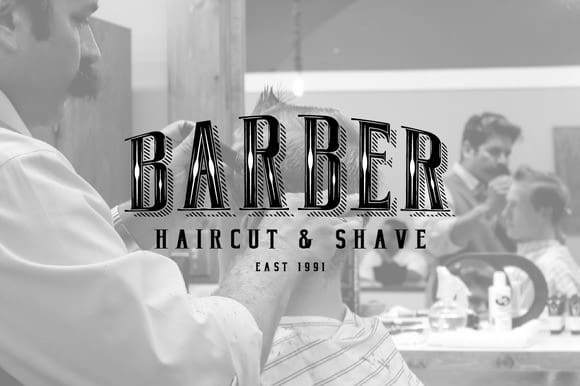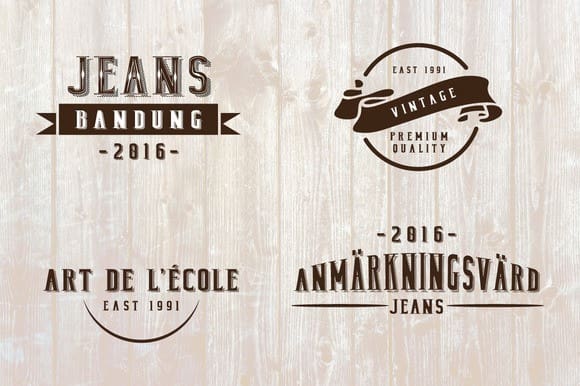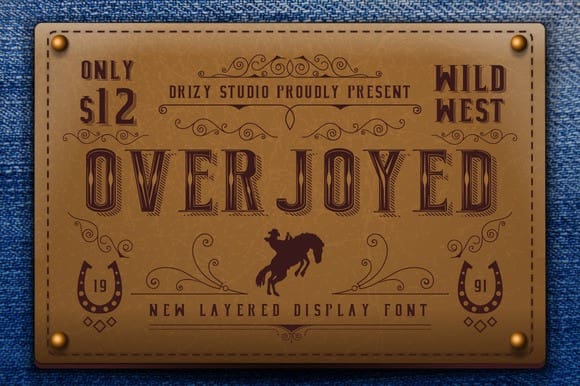
Overjoyed Display Font
Overjoyed Display Font, is a layered display font that is Americay cowboy inspired. The Shadow & Highlight versions of this font can be placed perfectly behind the Overjoyed Regular font to create unique effects.
The Overjoyed font is perfect for many purposes and different types of projects.